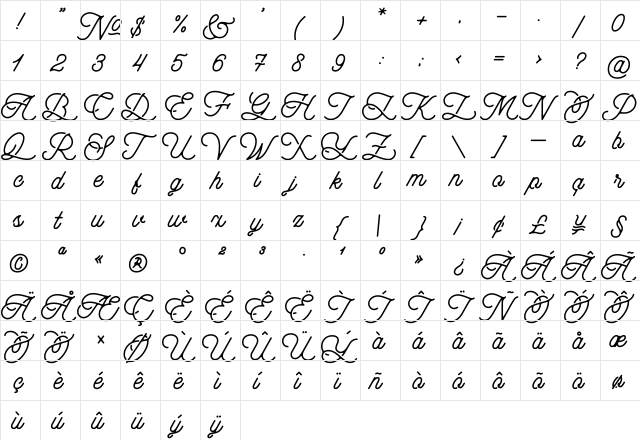
aaleyah-PERSONAL-USE-ONLY PERSONAL-USE-ONLY
Design Context for aaleyah-PERSONAL-USE-ONLY Typeface
aaleyah-PERSONAL-USE-ONLY is a composed and adaptable typeface that performs quietly and consistently across a wide range of design contexts.